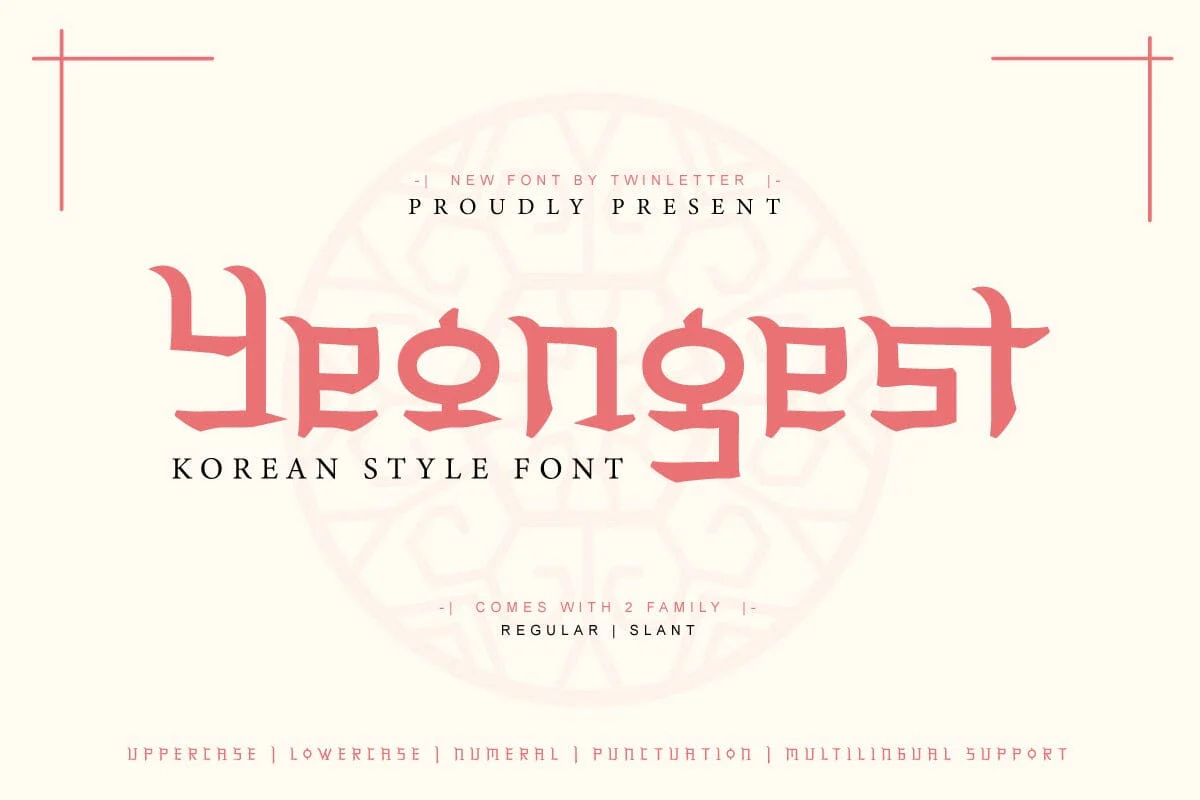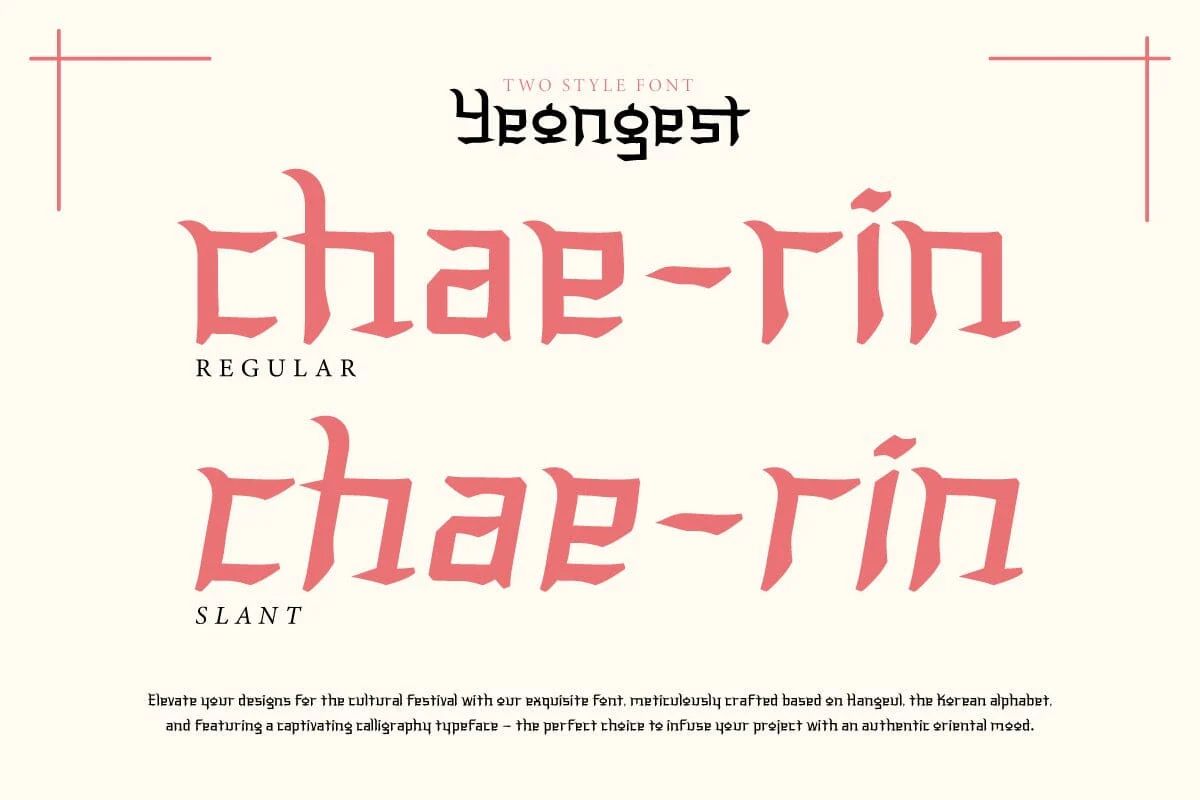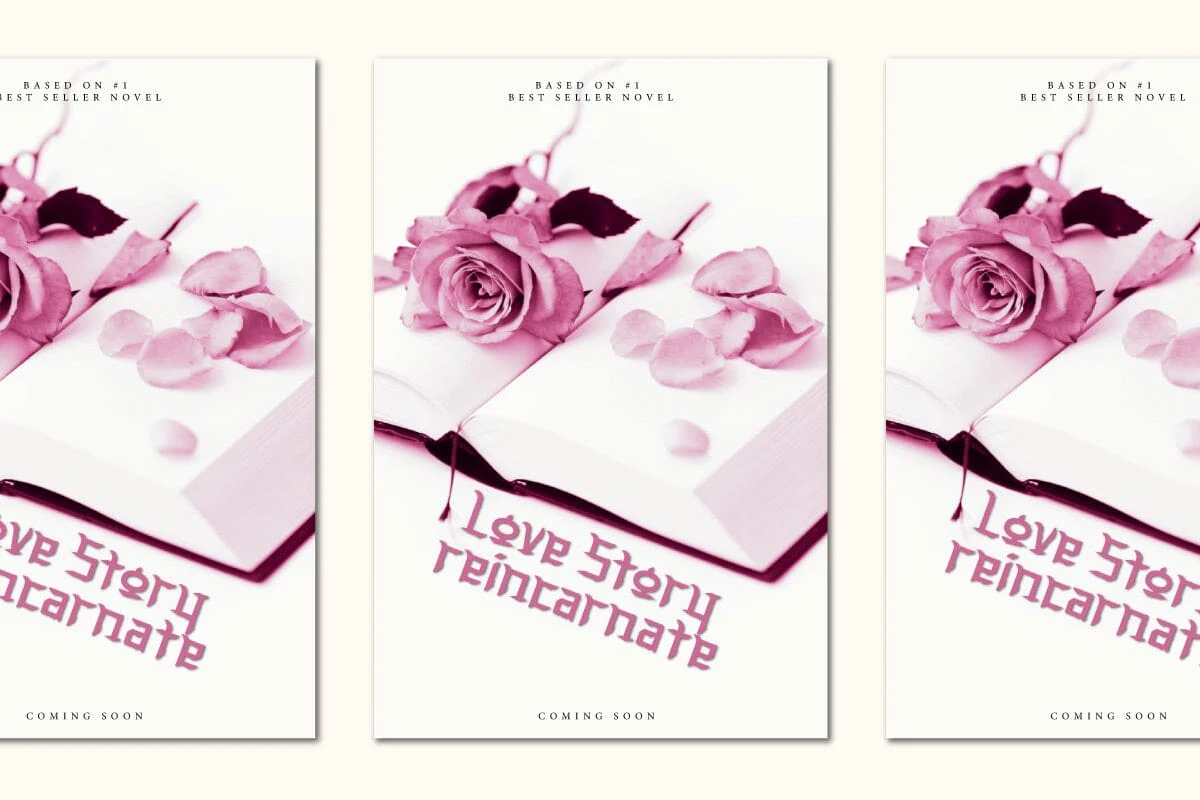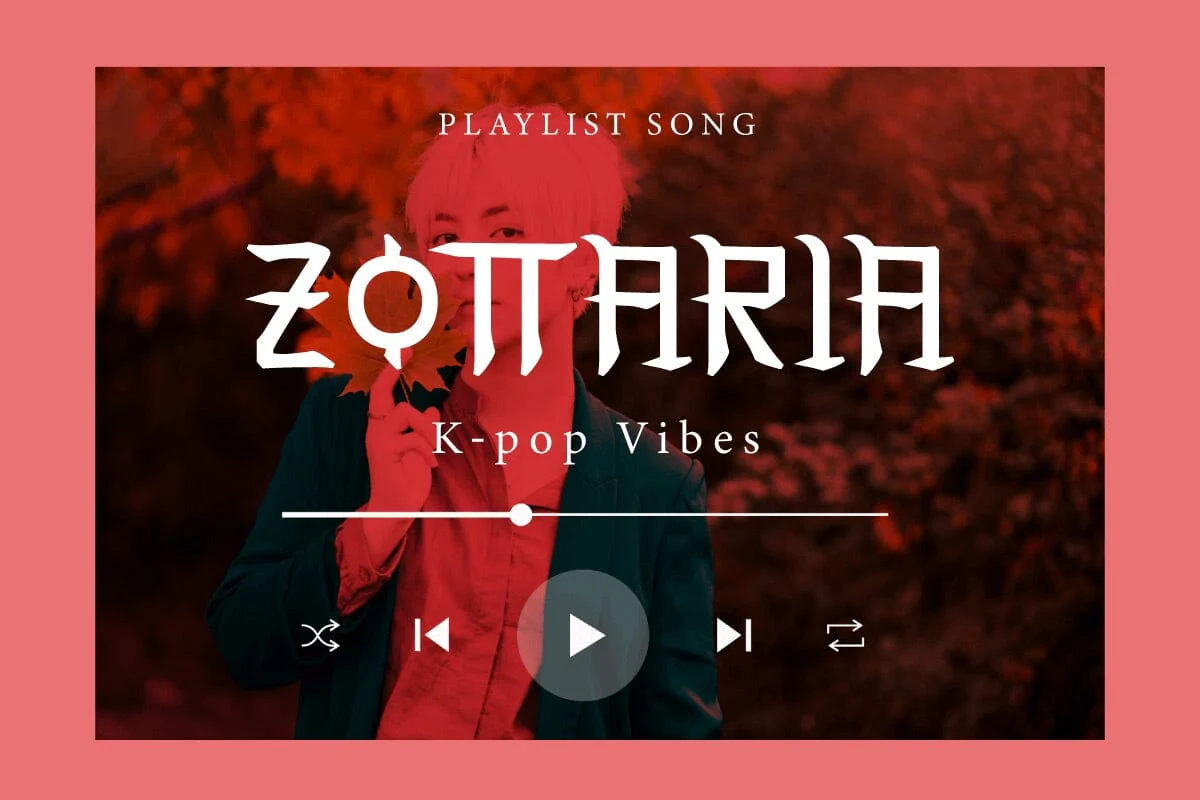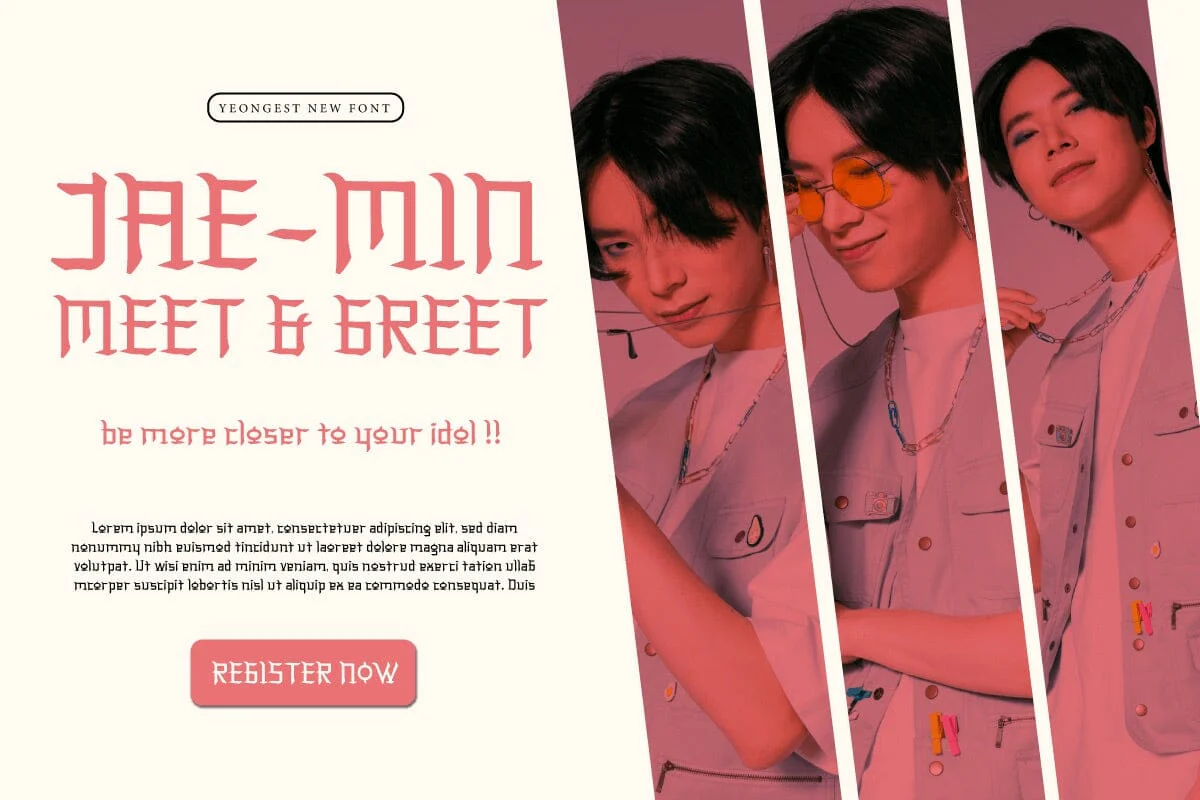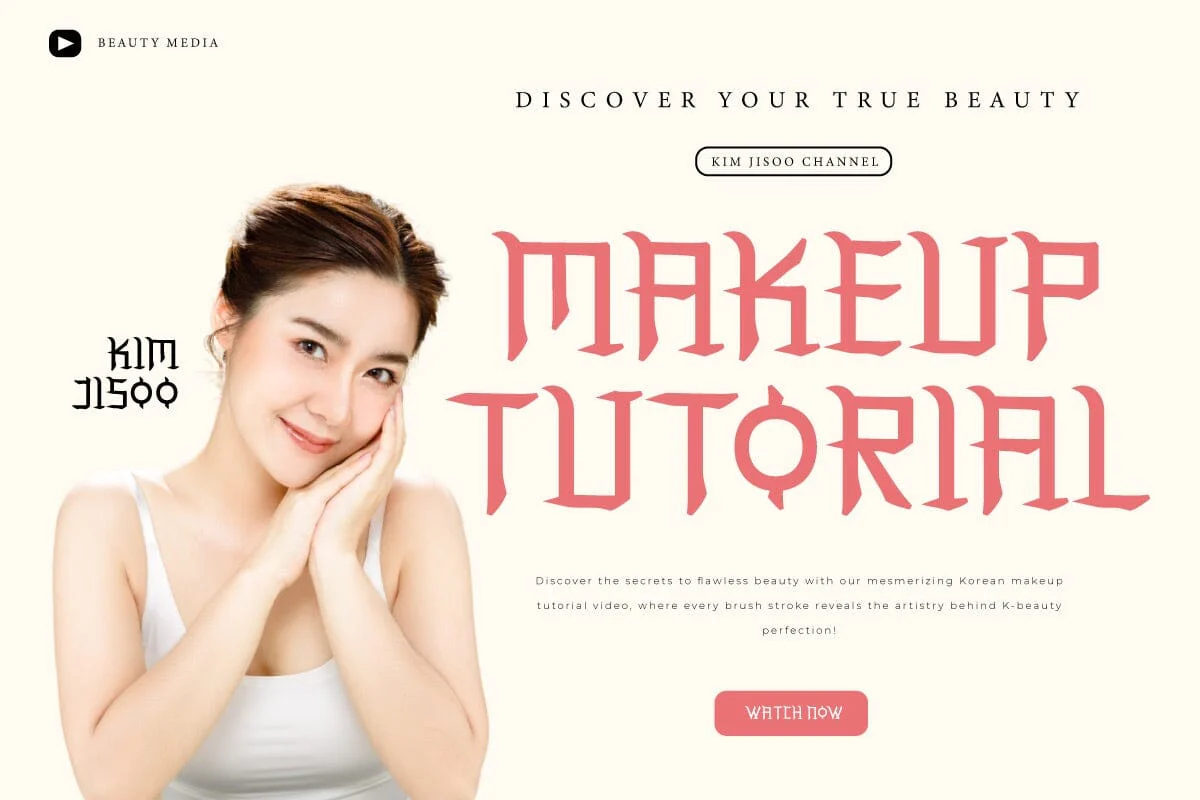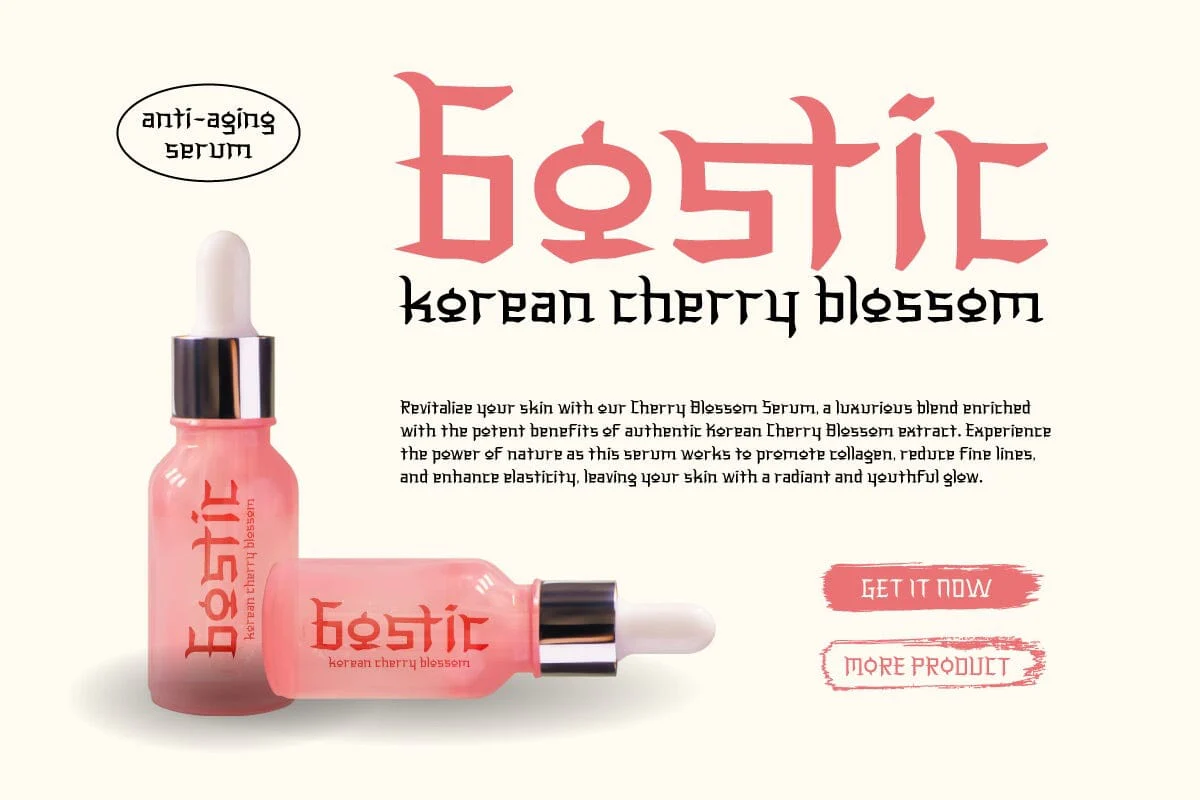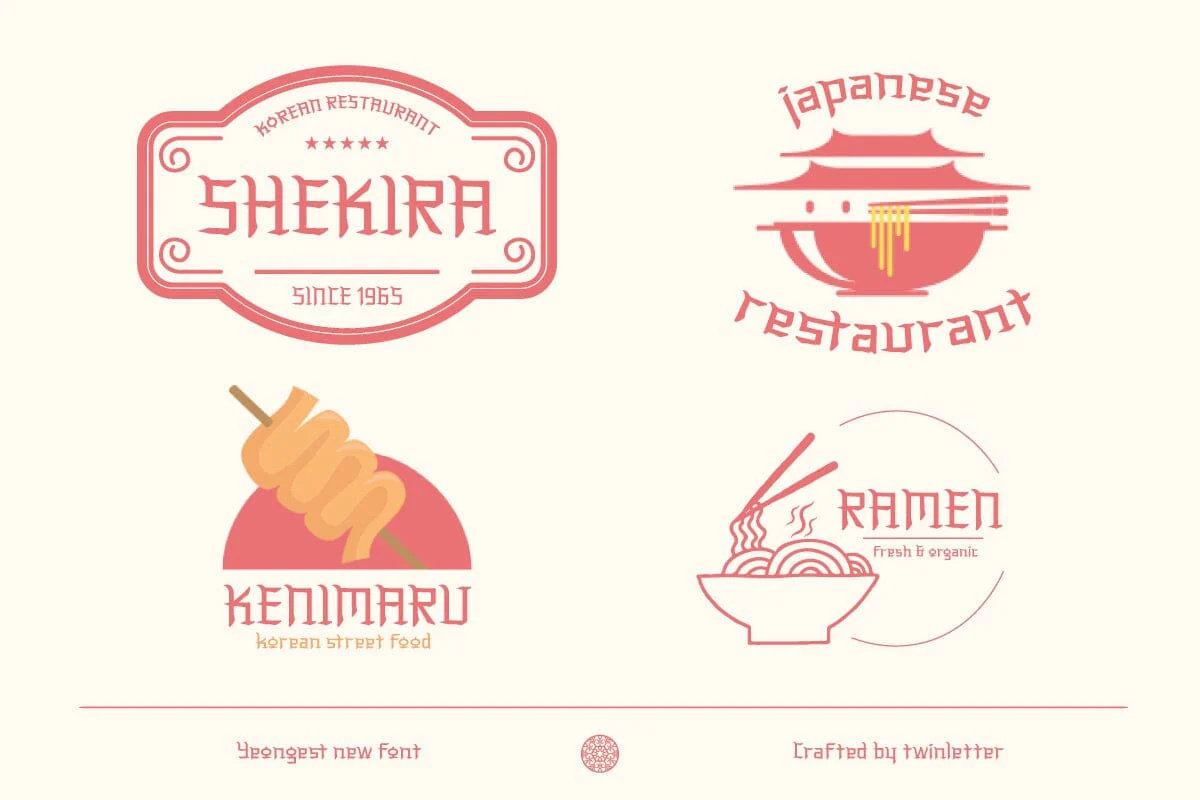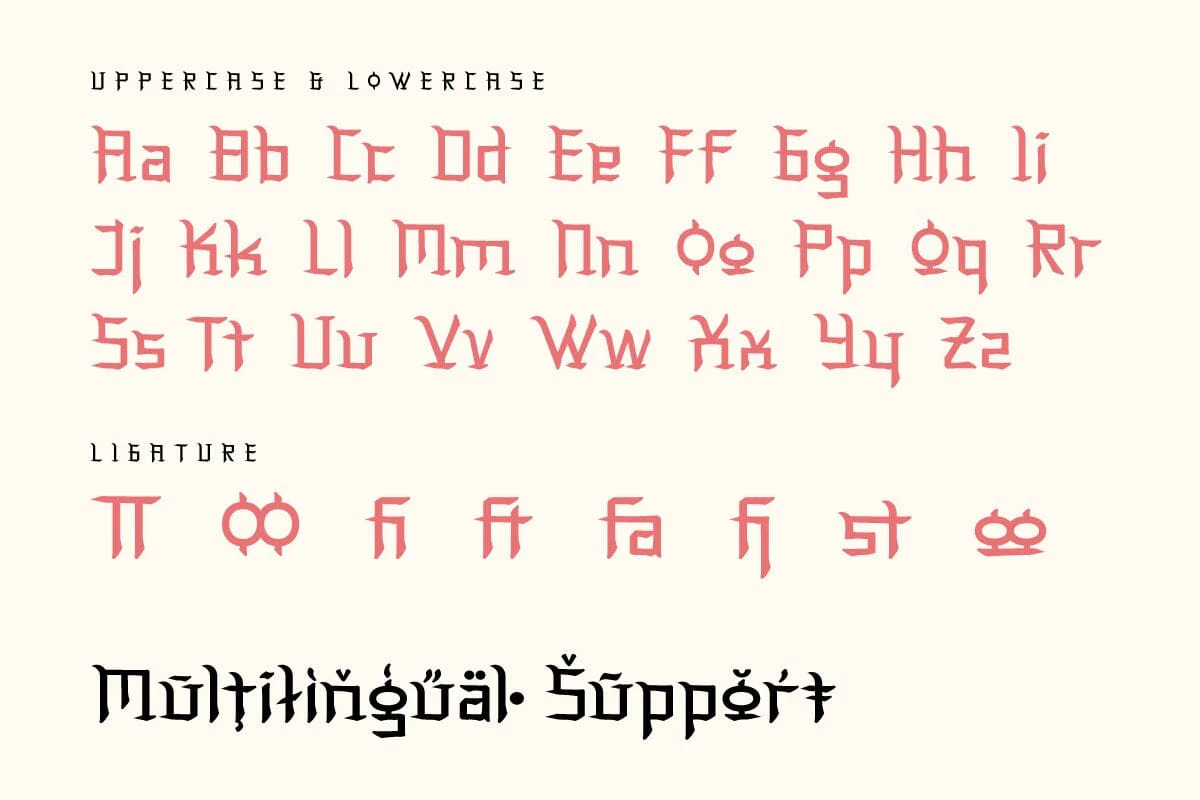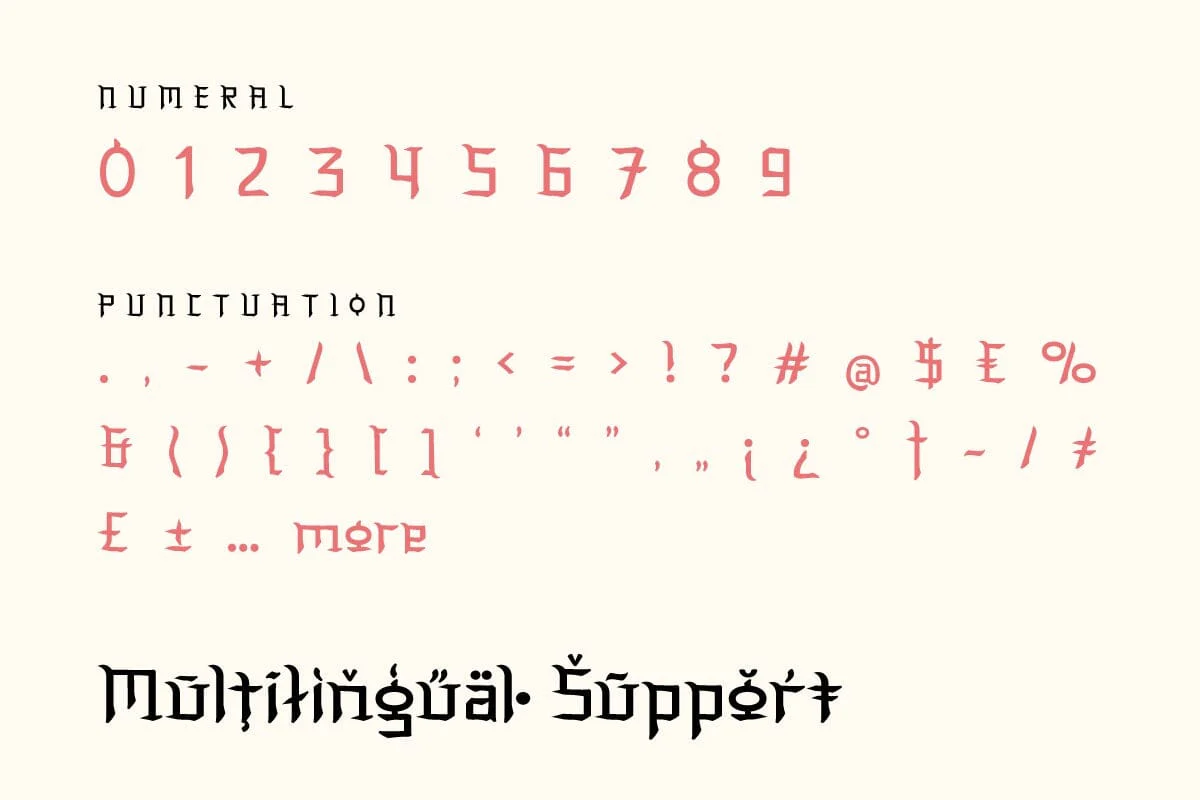
Yeongest - Korean Style Font
Welcome the beauty of Korea with Yeongest, a stunning font with a charming Asian touch. With each letter exuding elegance and gentleness, Yeongest takes you on a fascinating journey through Korea's rich culture.
Yeongest is the perfect choice for branding projects, logo typography, and special events that want to embrace the beauty of Asia. The classic yet modern design gives each piece a unique and charming touch.
Let Yeongest take you on a journey through the wonders of Korean culture. This Korean-style font, brings enchanting beauty to your every design, making every project a representation of timeless beauty.
Welcome the beauty of Korea with Yeongest, a stunning font with a charming Asian touch. With each letter exuding elegance and gentleness, Yeongest takes you on a fascinating journey through Korea's rich culture.
Yeongest is the perfect choice for branding projects, logo typography, and special events that want to embrace the beauty of Asia. The classic yet modern design gives each piece a unique and charming touch.
Let Yeongest take you on a journey through the wonders of Korean culture. This Korean-style font, brings enchanting beauty to your every design, making every project a representation of timeless beauty.